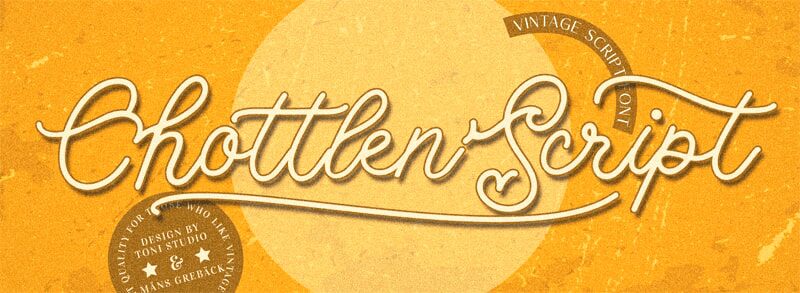
Chottlen Script PERSONAL USE Regular
Mans Greback's Chottlen Script is a light, cute calligraphy font perfect for adding a personal touch to your projects. Use it to add an elegant flair to wedding stationery, social media graphics, or branding designs.
Use * and # after any letter to make a tail.
Example: Signature#
Use _ anywhere in a word to make a swash.
Example: Love_letter
Use multiple underscores to make different swashes.
Example: Hand_____writer